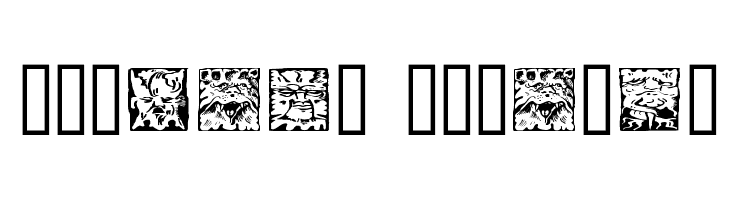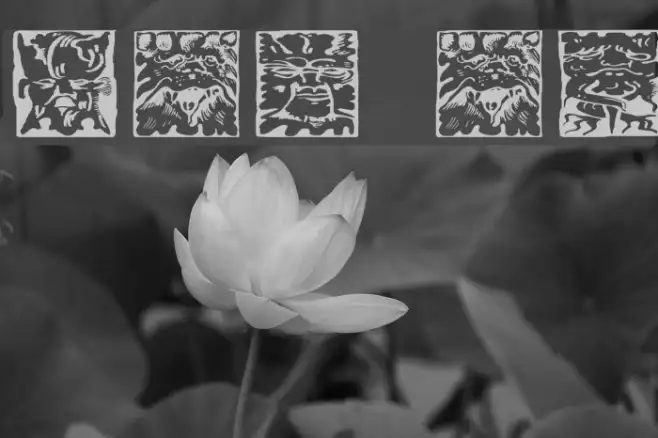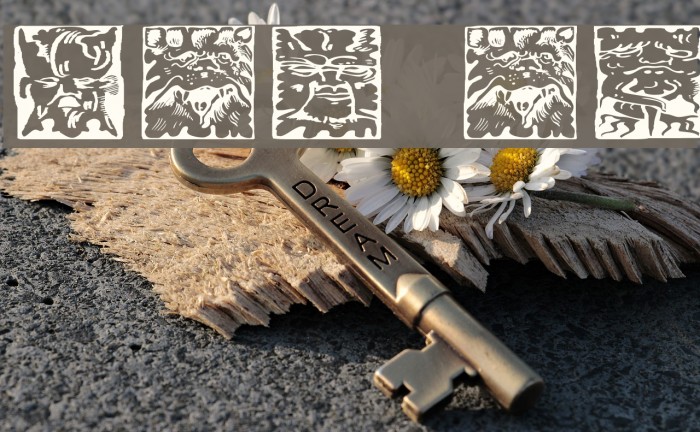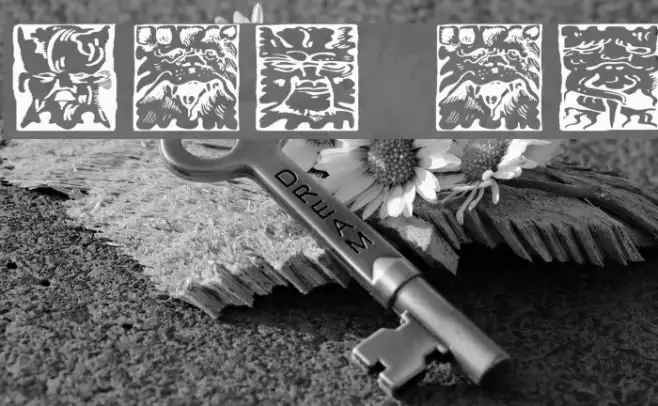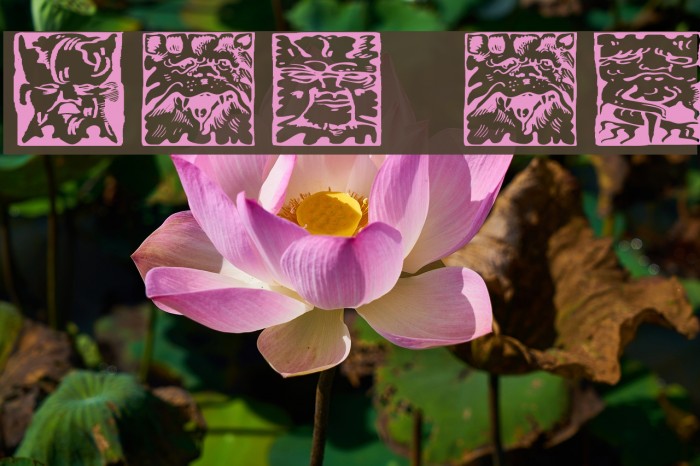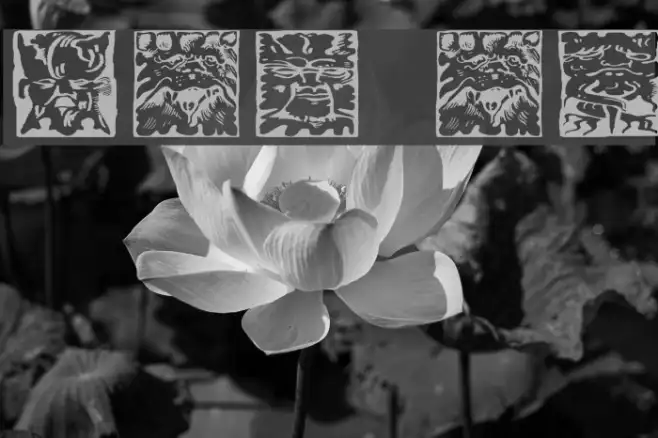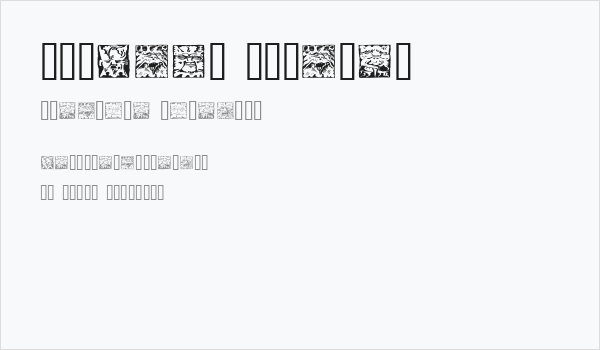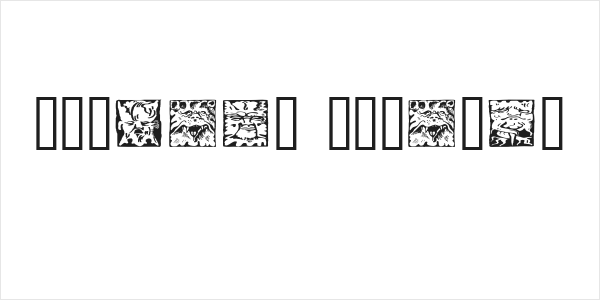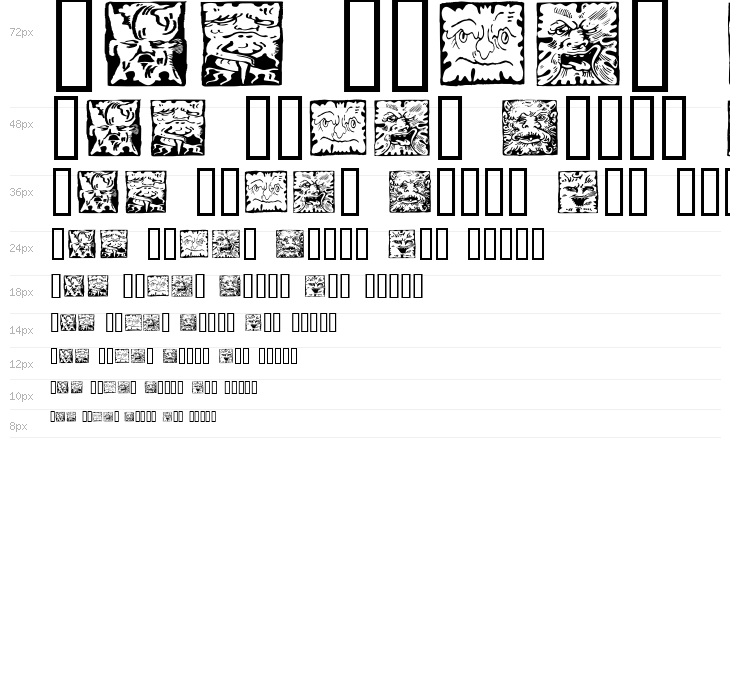
Mythago Squares Font
Mythago Squares Description
This is not a valid font. The image contains decorative square designs with intricate patterns, resembling mythical creatures or abstract art. These squares are not representative of any alphabetic or numeric characters typically found in a font set. The designs are highly detailed and artistic, making them suitable for decorative purposes rather than functional typography.
| Use Case | Decorative elements, Art projects |
| Proposed Projects | These designs could be used for decorative borders, art projects, or as unique graphic elements in design work. |